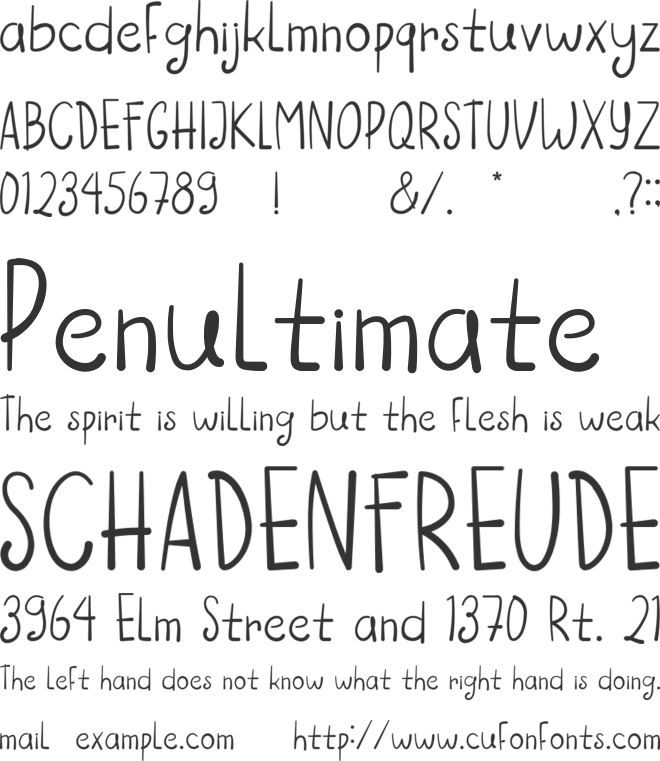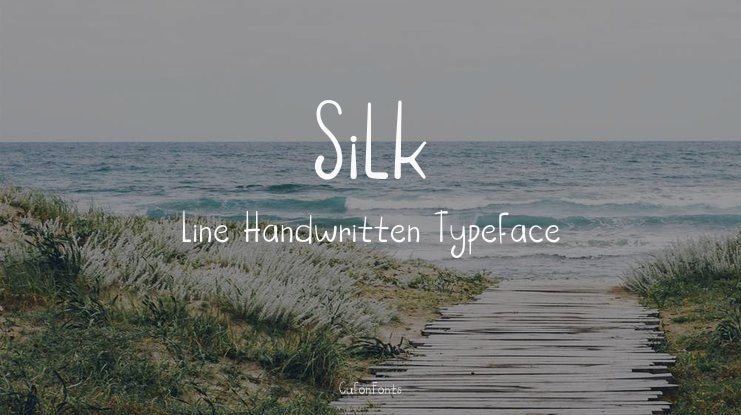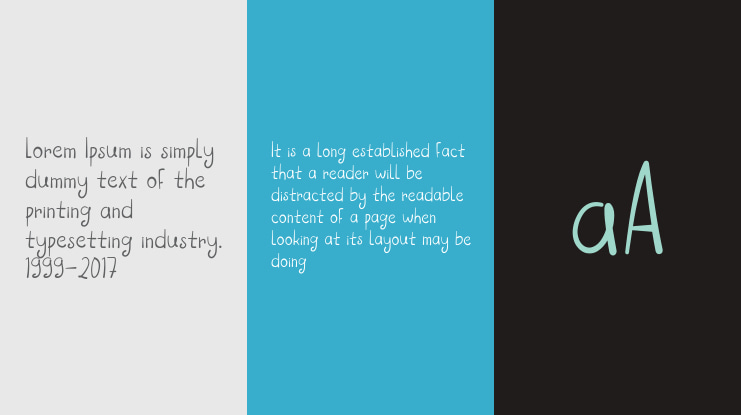
Silk Line Handwritten Font
Silk Line Handwritten is a light, minimalist handwritten font with ultra-clean monoline strokes and graceful rounded terminals. Its delicate penmanship, tall condensed proportions, and sweet, authentic tone make it perfect for digital planners, bullet journal stickers, aesthetic quote prints, minimalist packaging, and boutique branding. The smooth, gentle curves keep every layout clear and charming.
Silk Line Handwritten font preview